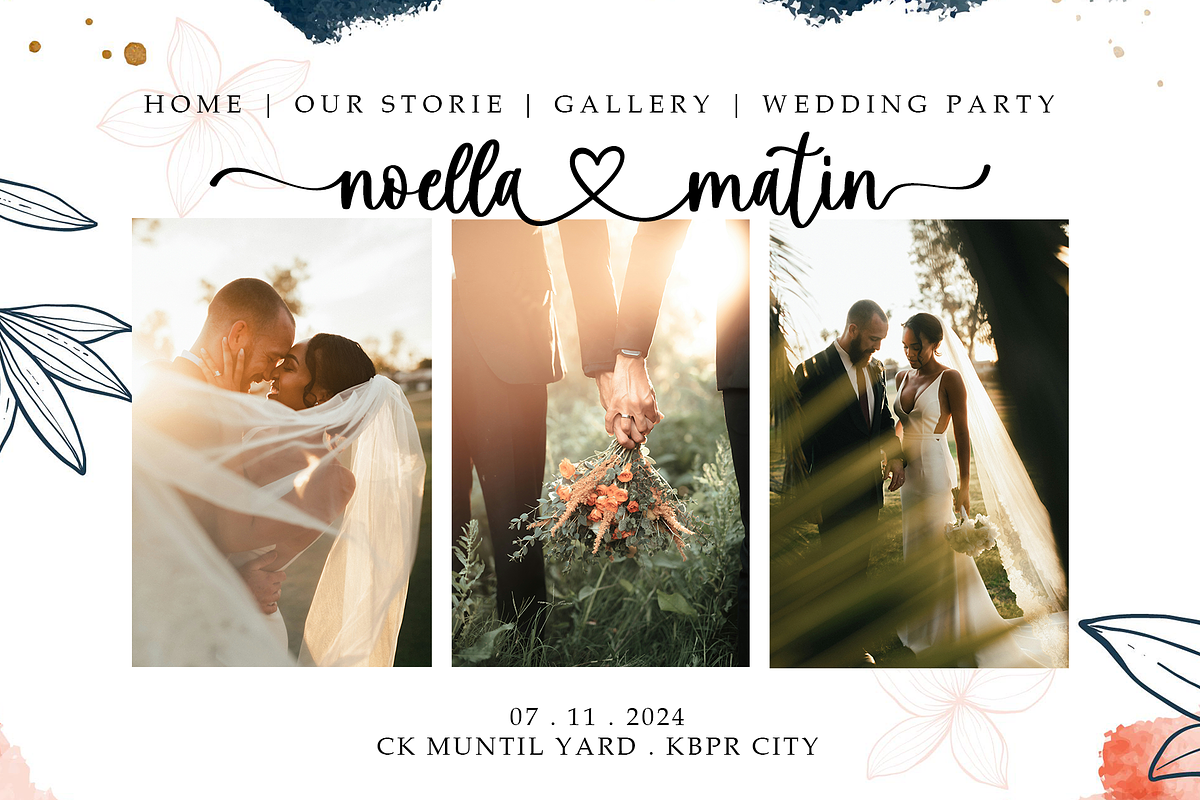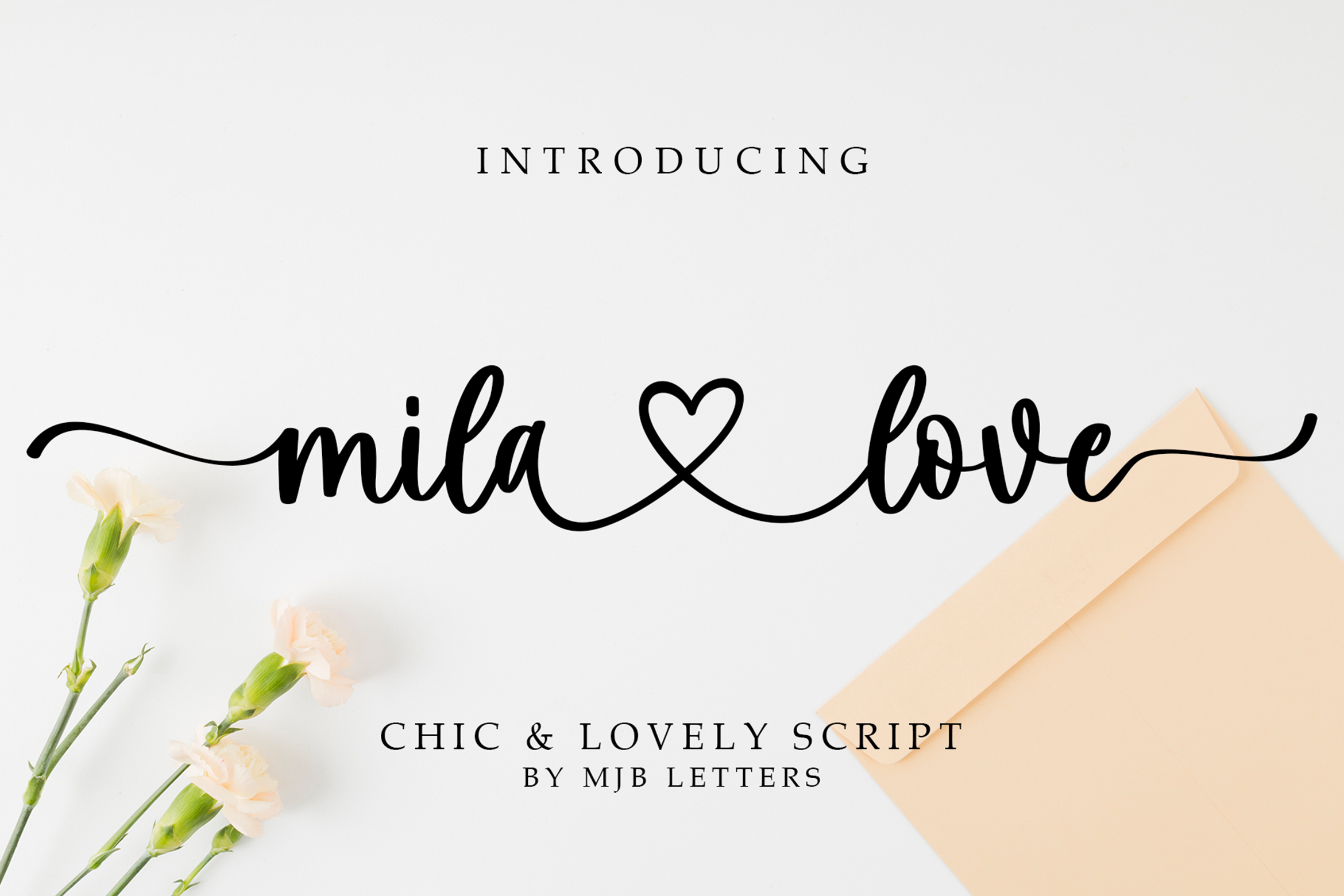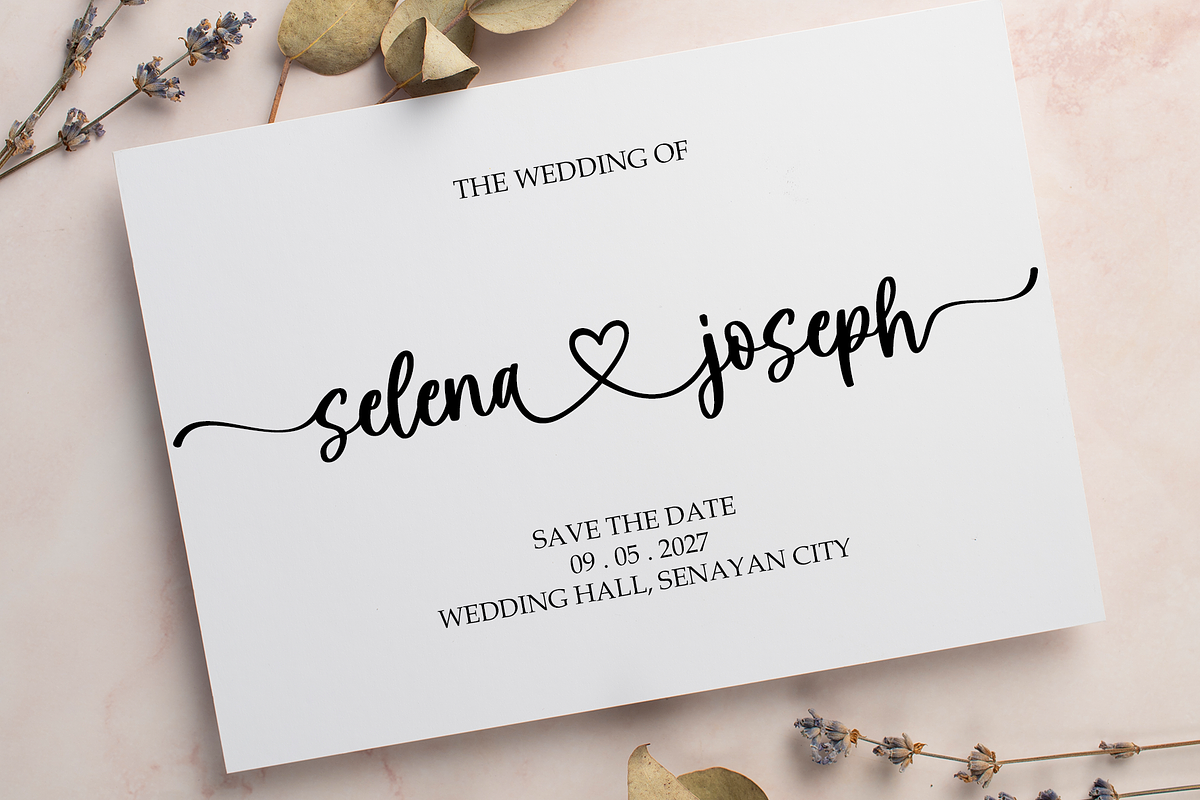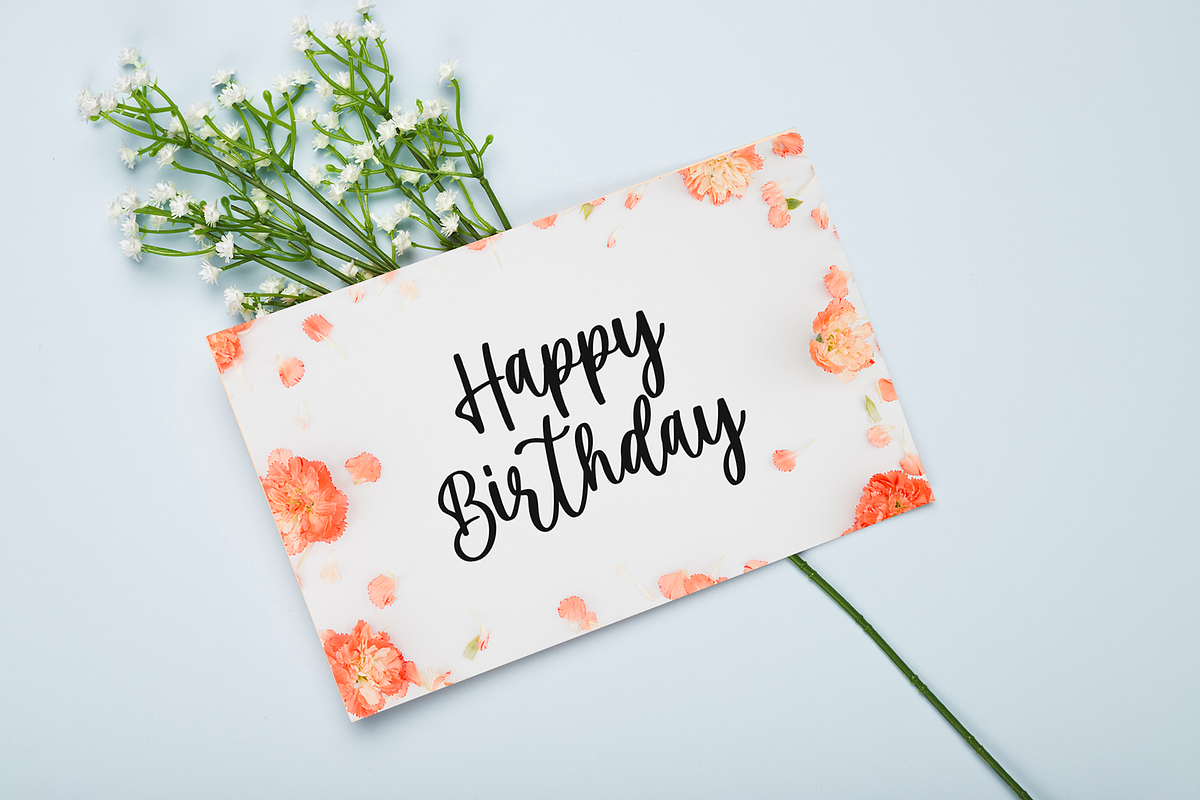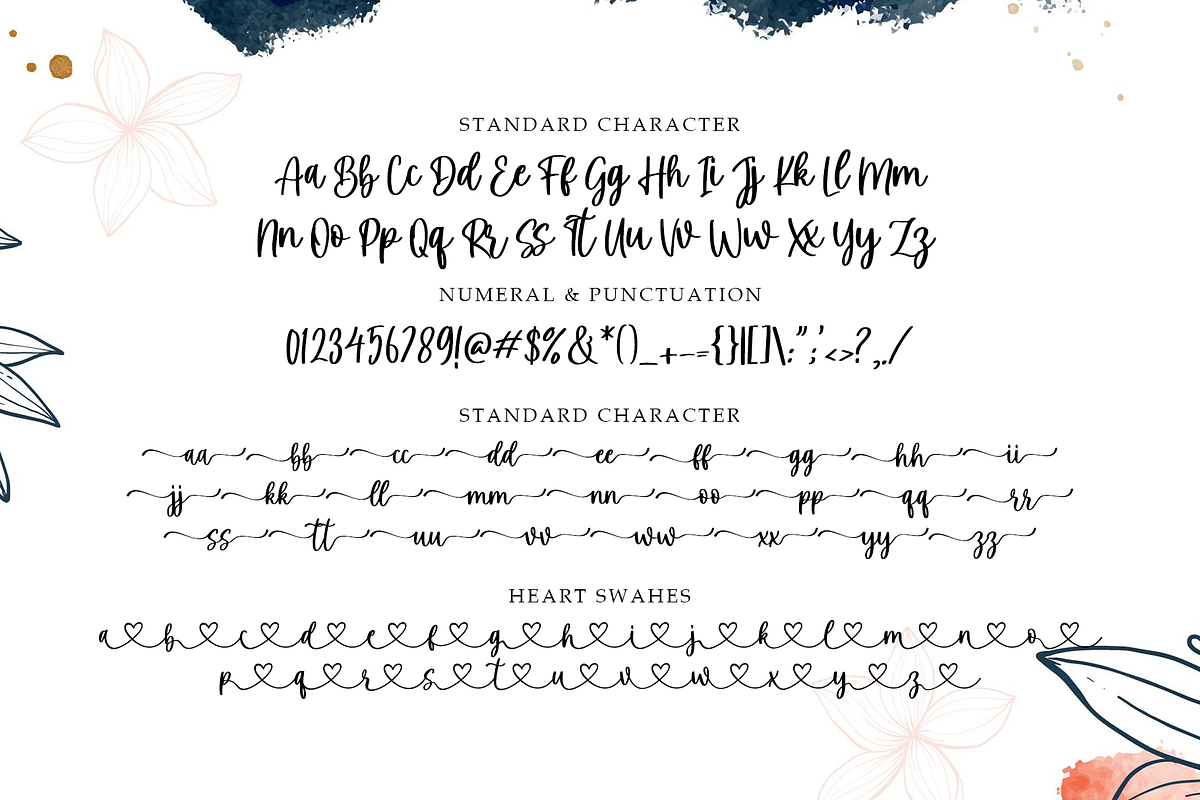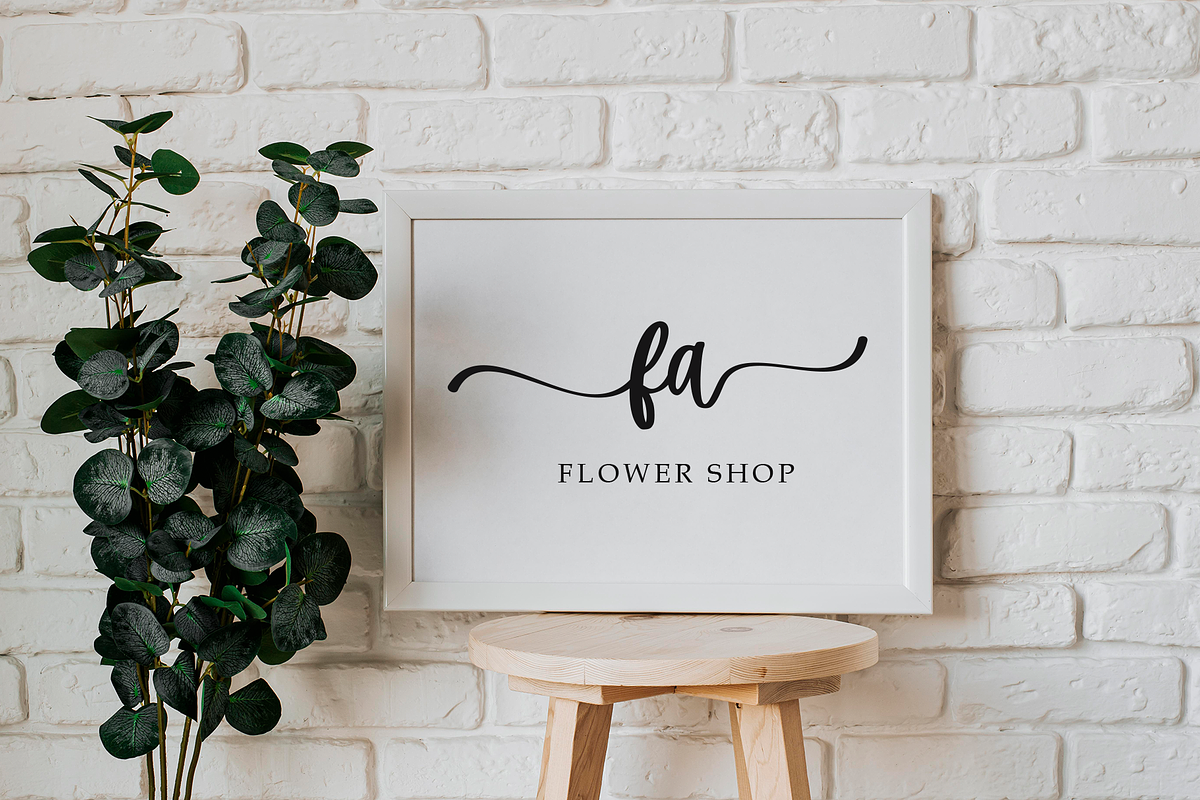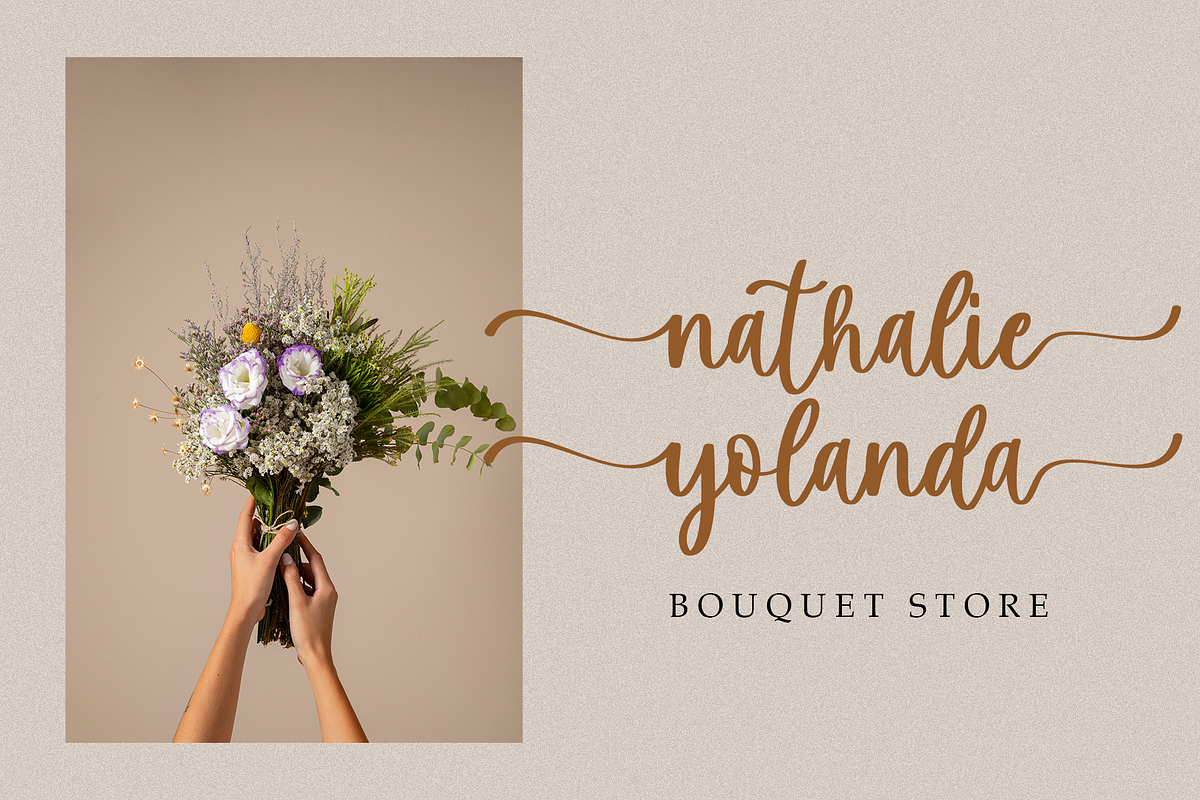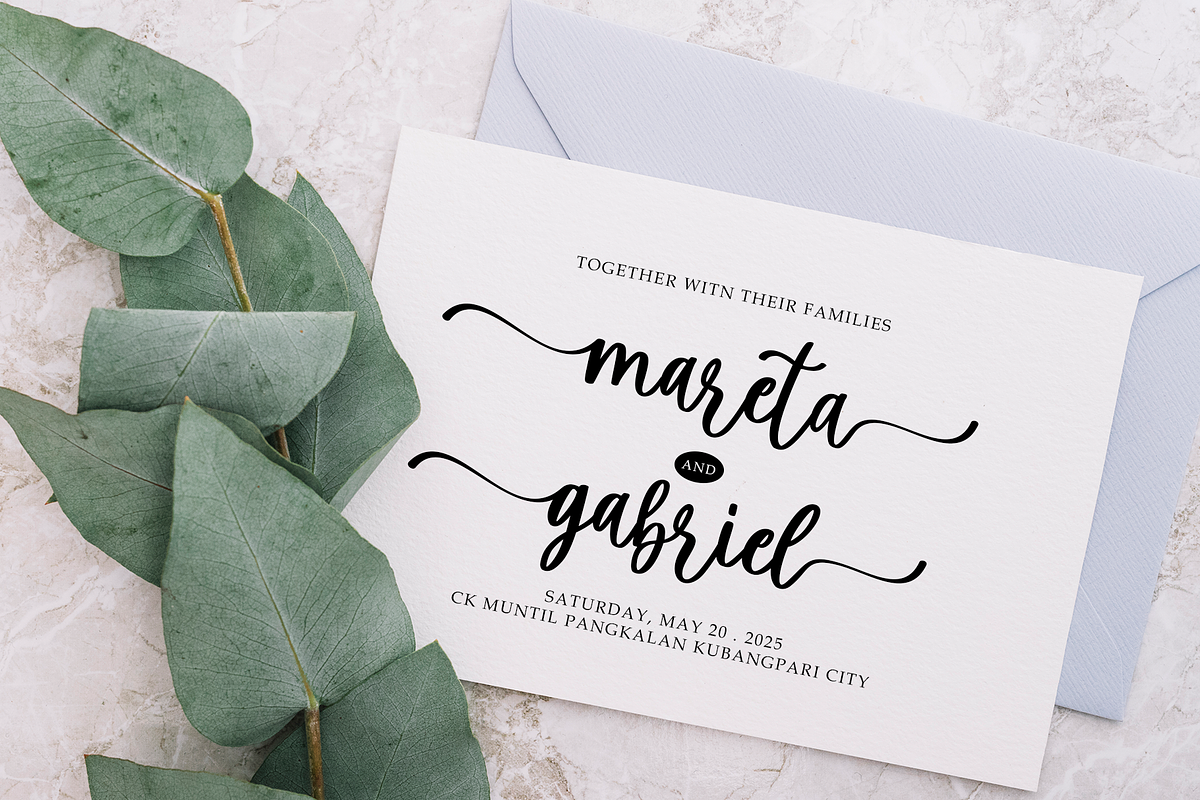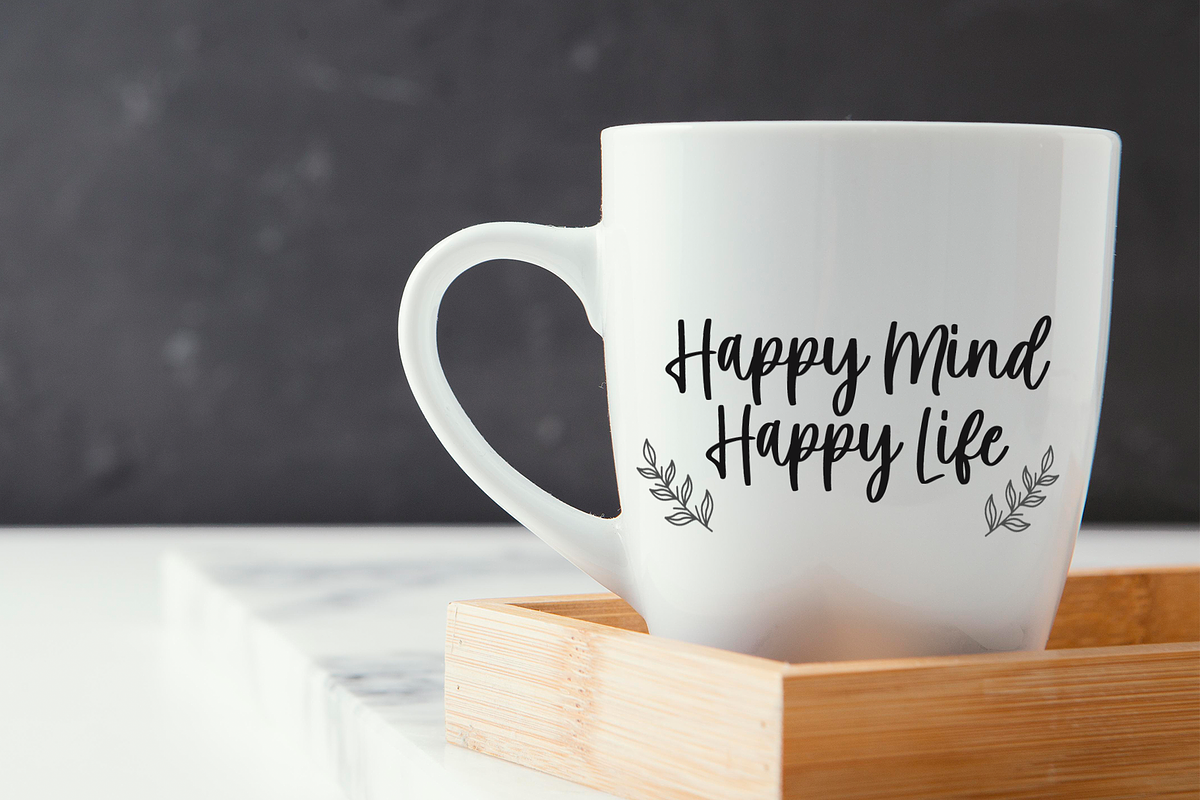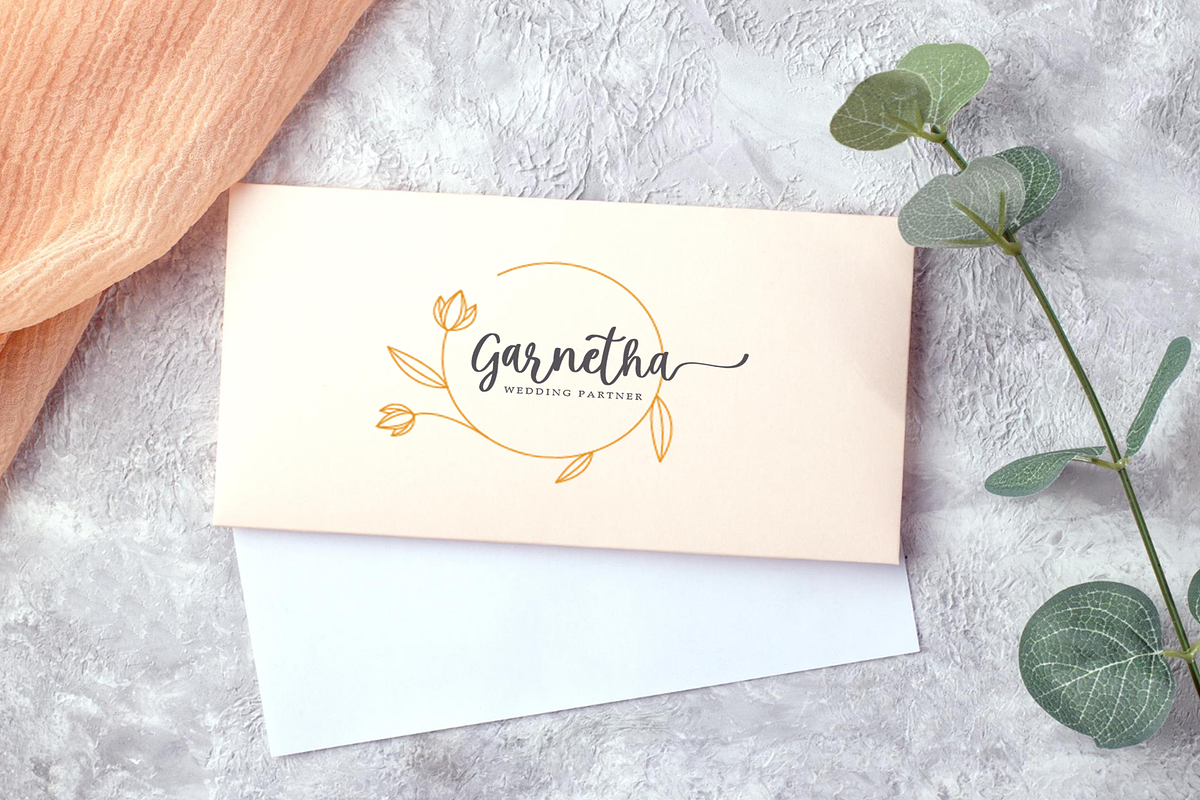
Mila Love - A Romantic Font
Introducing Mila Love, a beautifully crafted script font that exudes elegance and romance. Featuring unique connecting hearts, ligatures, and exquisite beginning and ending swashes, Mila Love is perfect for a wide range of design projects such as wedding invitations, branding, packaging, social media graphics, and handwritten quotes. The delicate and romantic design, along with its versatile application, makes Mila Love an essential addition to your font collection.
With its distinctive connecting hearts and swashes, your designs will stand out and leave a lasting impression, adding a touch of sophistication to any text. Carefully crafted ligatures ensure smooth and visually pleasing text flow, making Mila Love both a unique and high-quality choice for any designer. Elevate your design projects with the charm and elegance of Mila Love.
- Multilanguage Support
- Beginning & Ending Swashes
- Connecting hearth